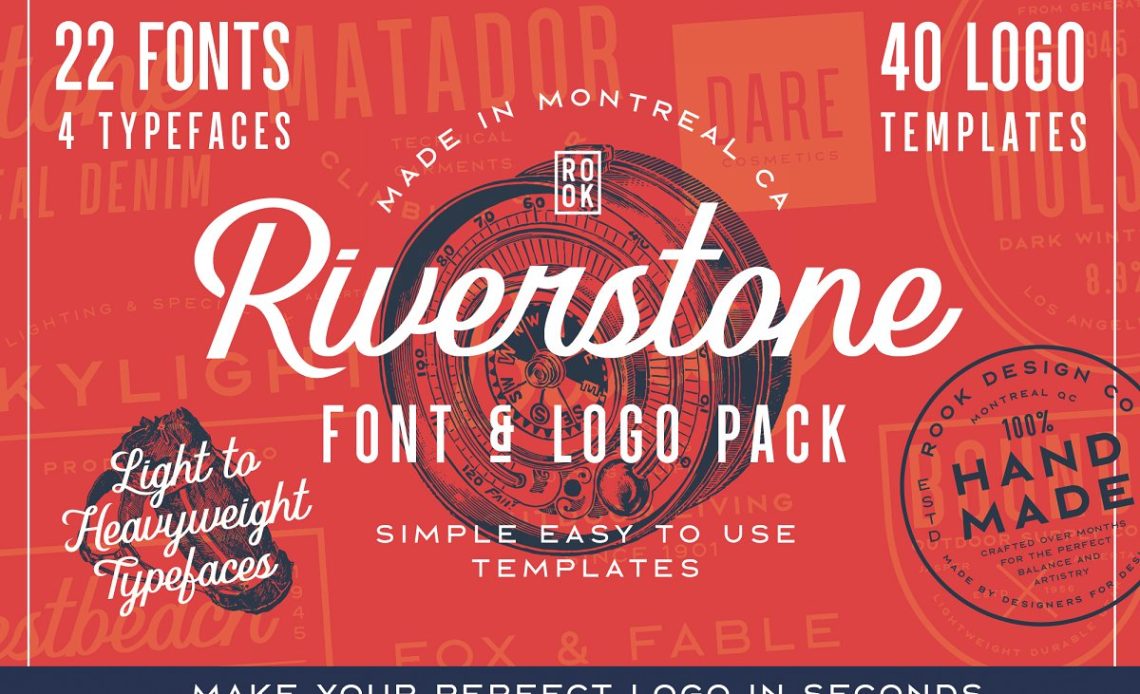
Introducing the Riverstone Font & Logo Template Pack, a game-changer for your brand's identity! Created by the talented Greg Nicholls, this font collection is specifically designed for those seeking the best fonts for magazine titles. Get ready to captivate your audience with this remarkable sans serif font family.
With a total of twenty-two fonts included in four different typefaces, the Riverstone Logo & Font Pack offers unparalleled versatility. Whether you need short and wide fonts or extra tall and condensed fonts, we've got you covered. Our fonts gracefully adapt to any shape and size, making your text truly stand out.
But that's not all! When you purchase this pack, you'll also receive the Parkson Typeface, a display font that shines in titles. With seven weights ranging from regular to black, your titles will exude elegance and professionalism.
To add a touch of ornate flair to your logo, the Laval Typeface is the perfect complement to our sans serif fonts. This script font adds artistic and intricate details to your designs, truly making them one-of-a-kind.
For smaller supporting type, the Rexton Typeface is a must-have. Its six weights maximize legibility, making it ideal for small sizes. However, it also stands on its own as a classic geometric title typeface.
Expand your design possibilities with the Dorion Typeface, a unique tall and condensed serif font. Perfect for longer title text or fitting into taller shapes, this font adds a clean and timeless touch to your designs.
But we don't stop there! Included in this pack are 40 ready-to-go templates for Adobe Illustrator. Simply install the fonts, load up the file, and let your creativity soar. In no time, you'll have a finished, elegant logo that will leave a lasting impression.